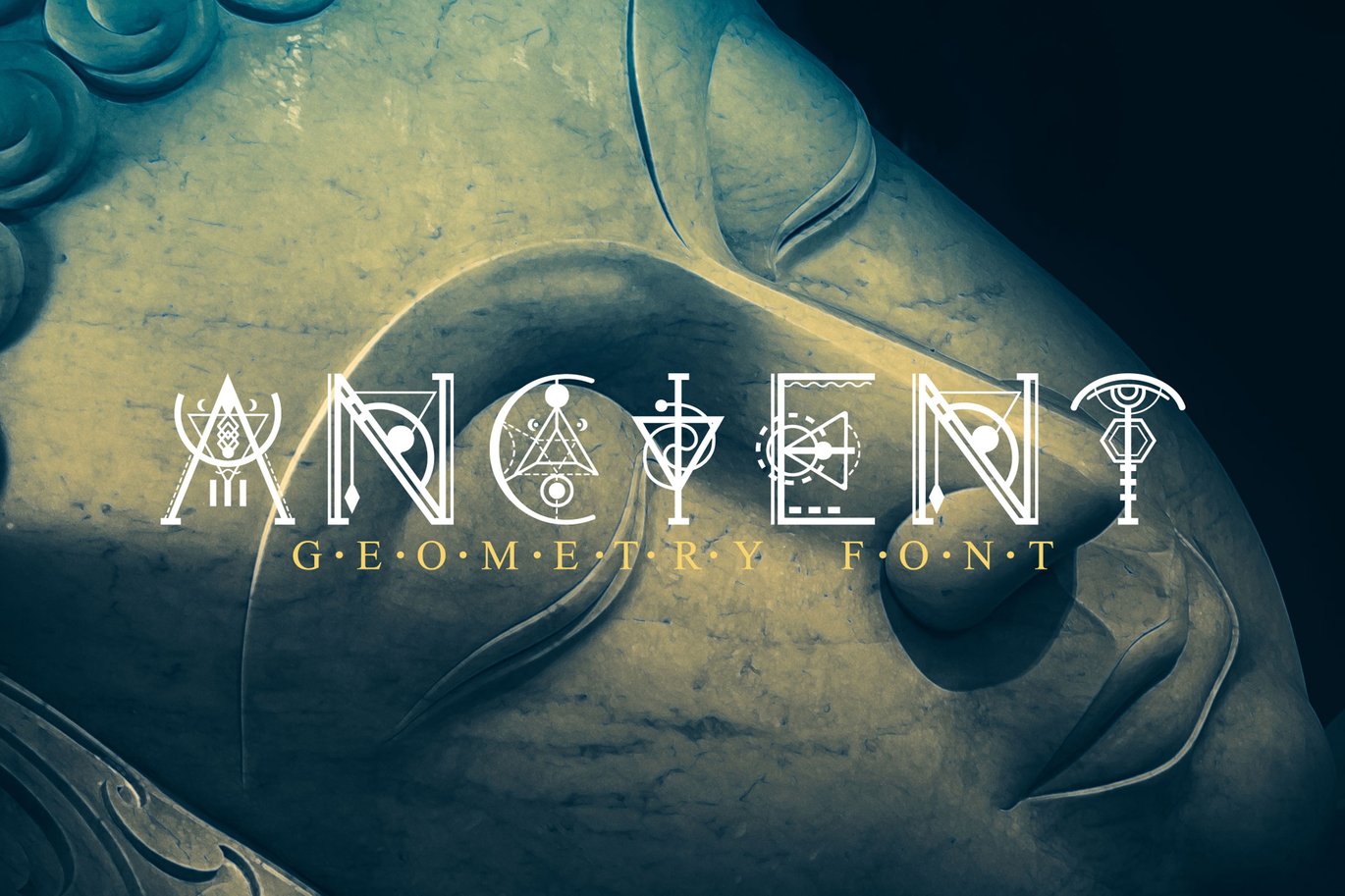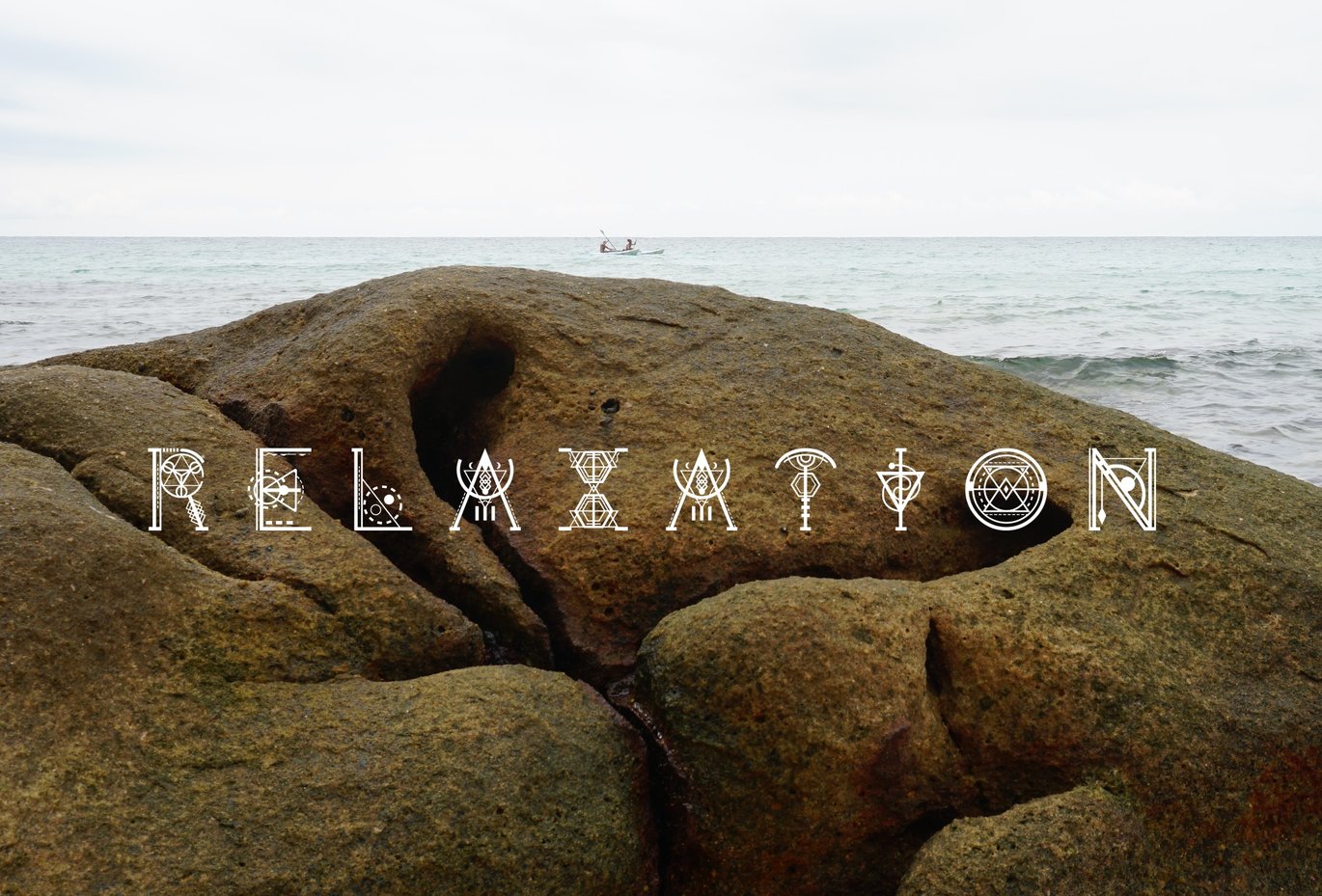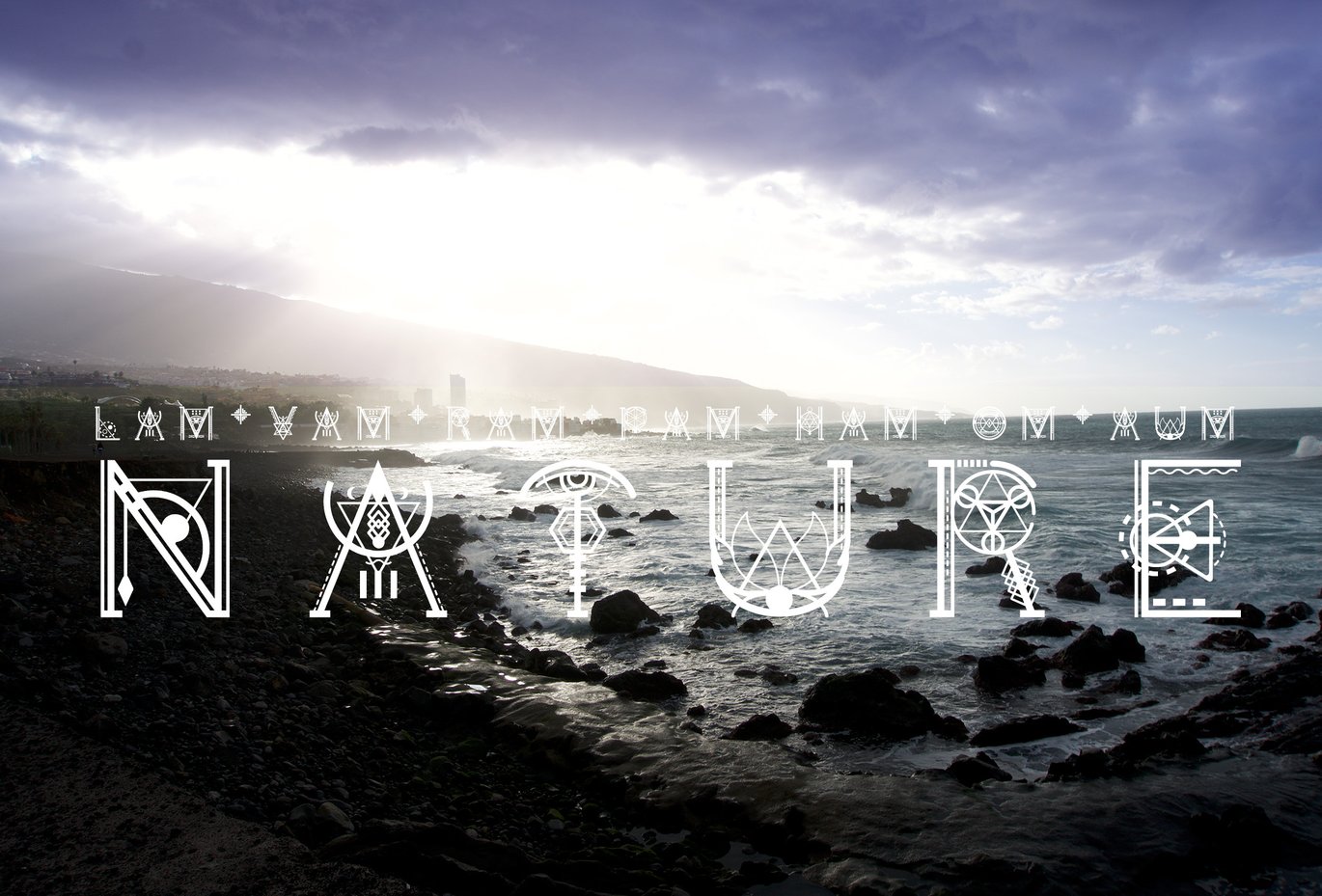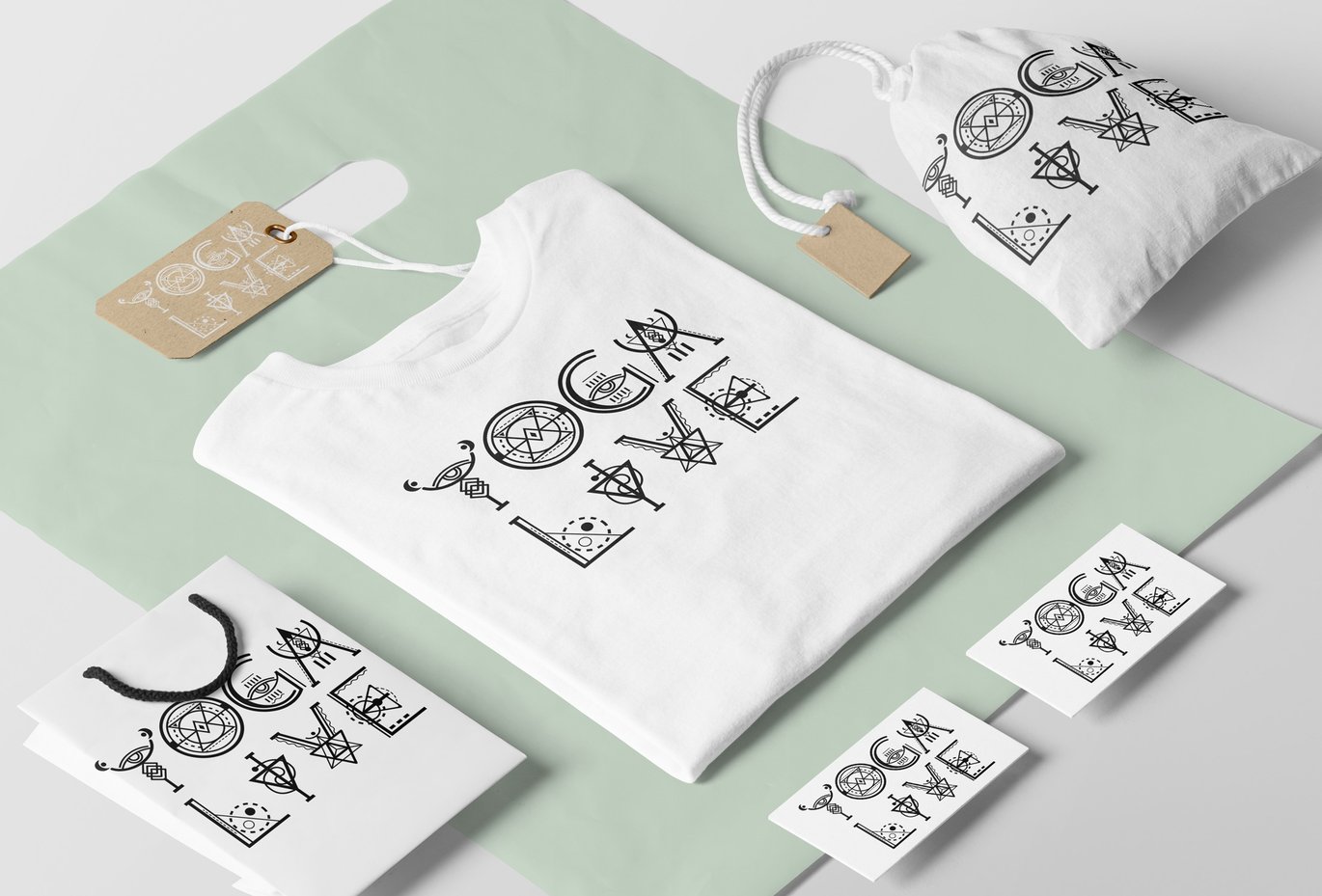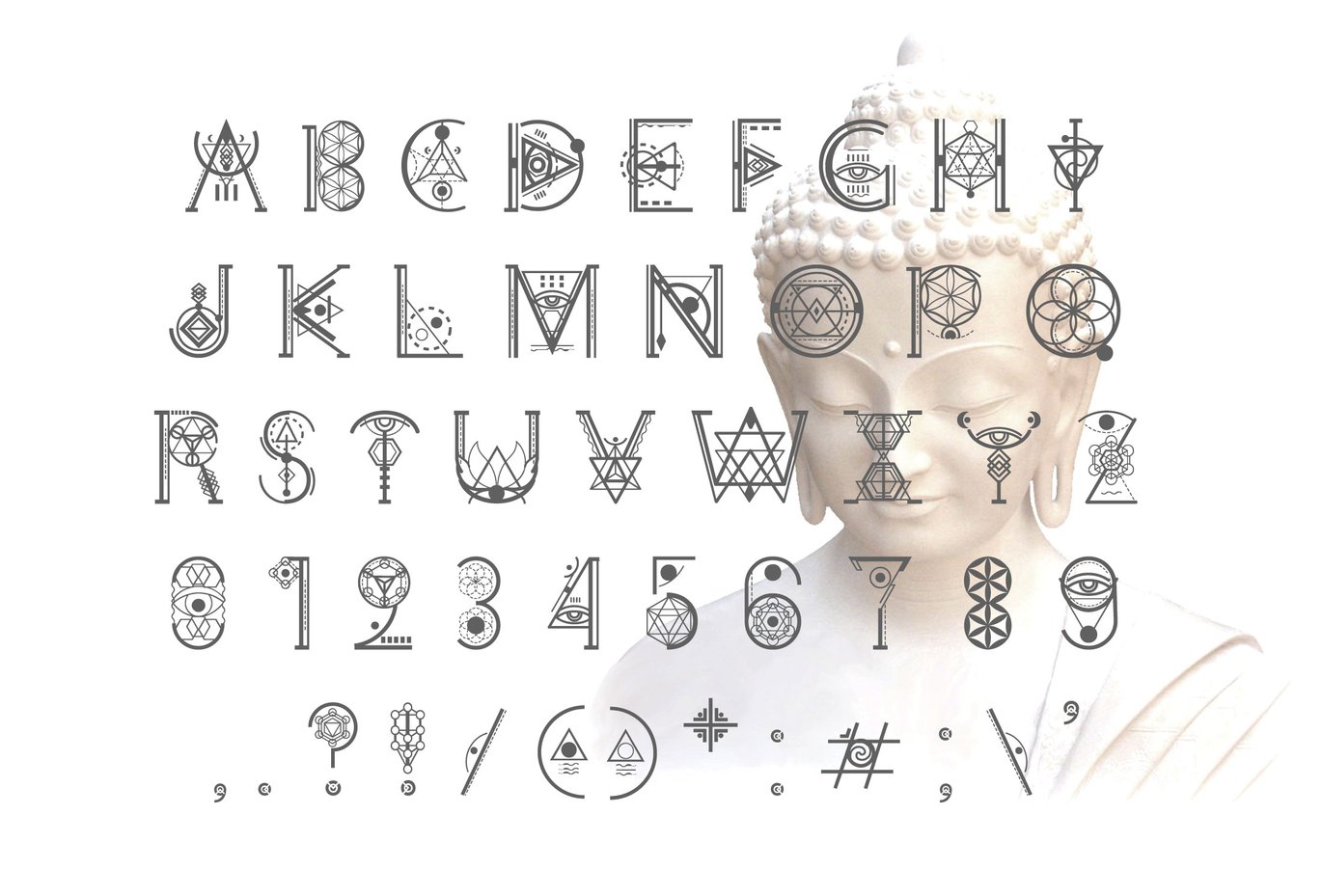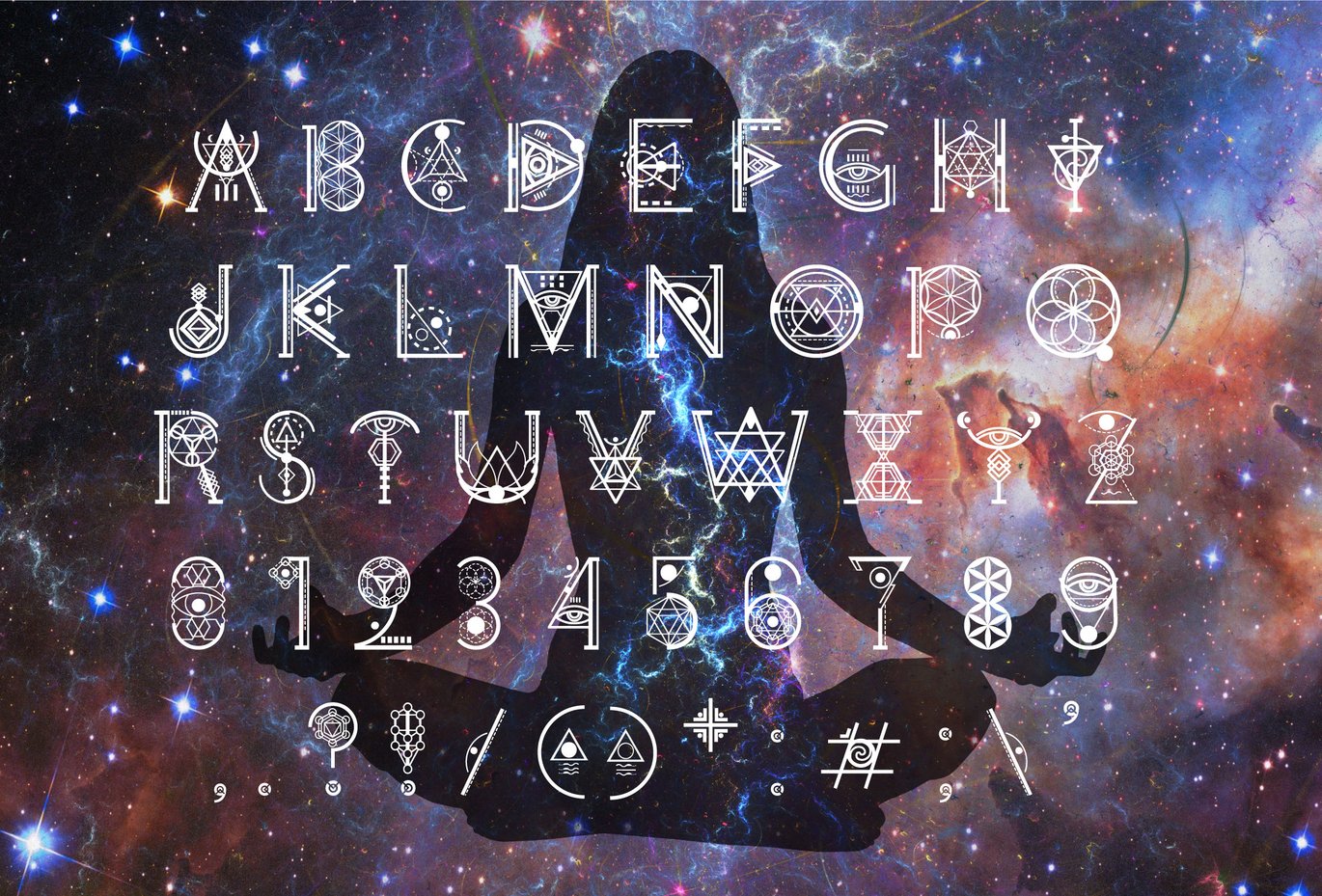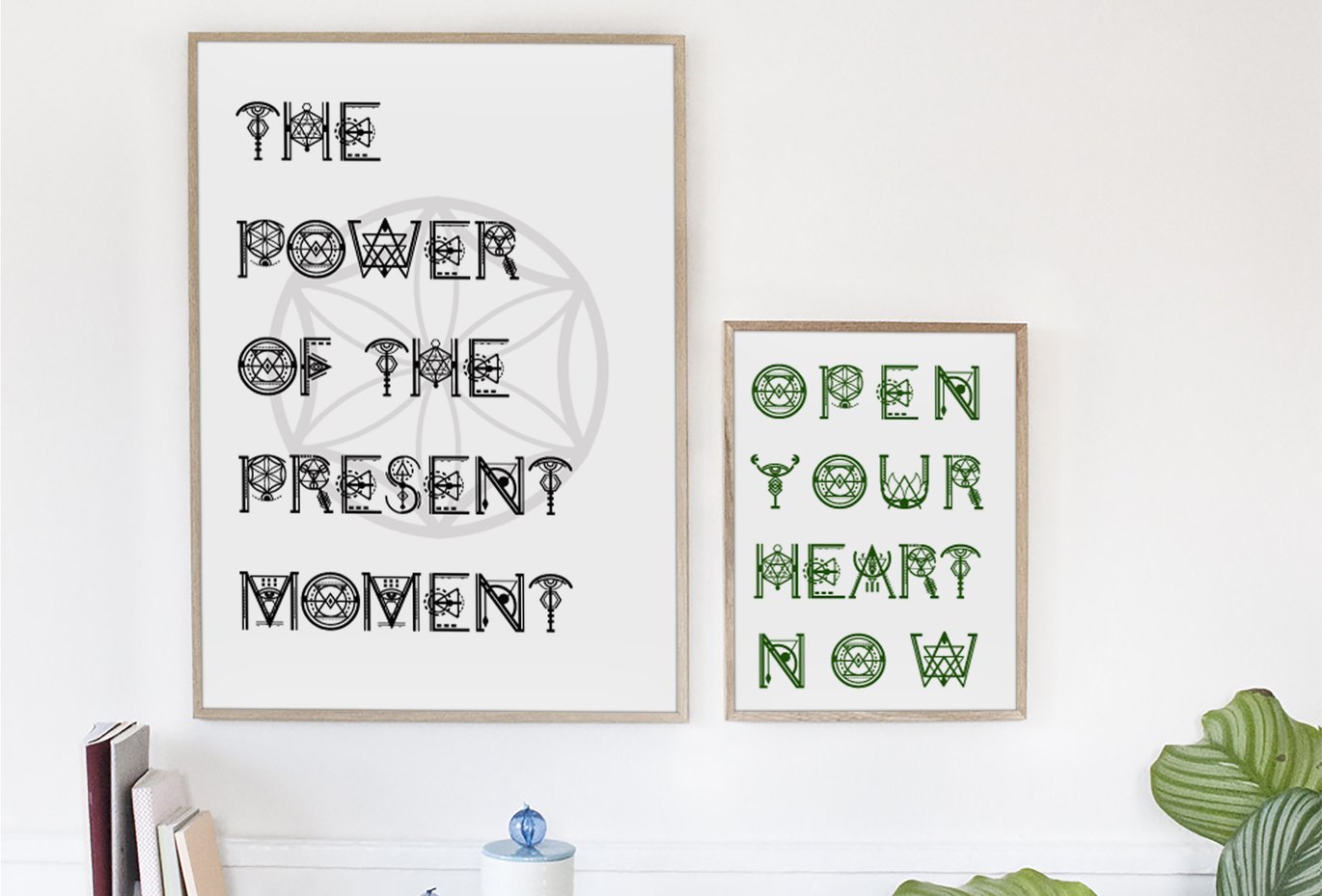
Ancient-Geometry font
This is a new unique decorative font based on the sacred symbols. It is very suitable for creating labels, titles, branding, also it has a great potential to design websites, different products, printing on any material. I called the font so because it is based on the symbols of sacred geometry, sacred symbols and totems, they are in my store. If you look closely, each letter is made up of them. These are god eye, moon, fire signs, air, earth, male and female, Qi energy etc.